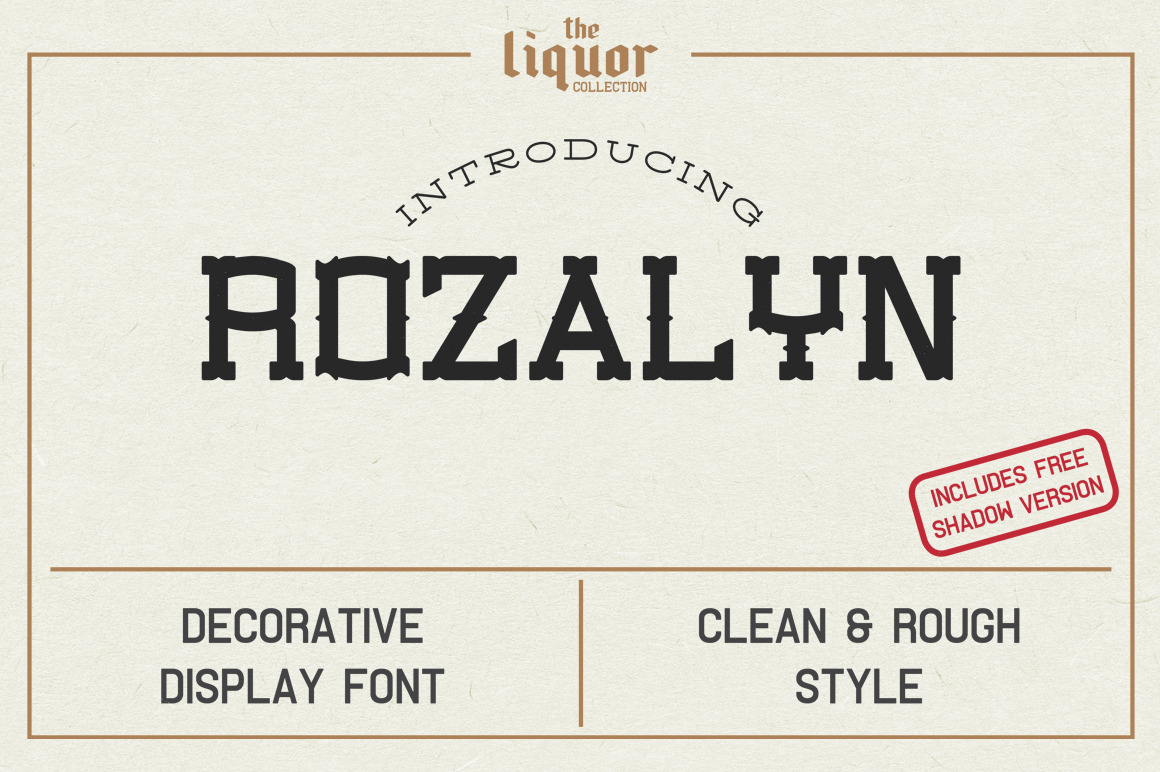
Rozalyn Font
Rozalyn Typeface is a part of "The Liquor Collection". Rozalyn is a western decorative font inspired by retro liquor labels and posters. Font is great for logos, labels, packaging and posters design.
- Rozalyn Clean
- Rozalyn Rough
Rozalyn Shadow contains only basic letters, numerics and punctuation.
Fonts are not textured. Textured designs are prepared for screenshots only!